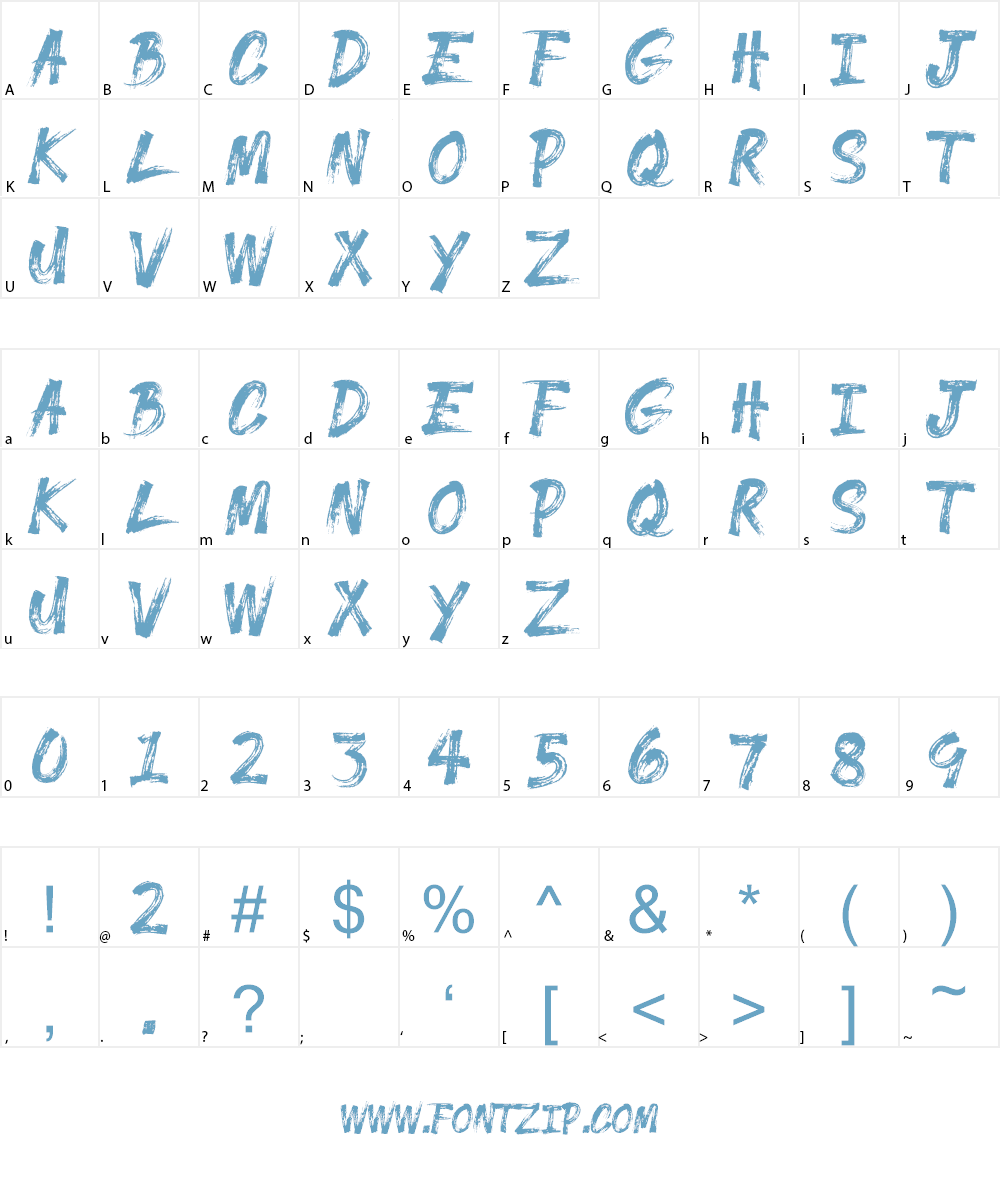
- Introducing -
GLADES (Brush Typeface).
- BOLD typeface with special Brush effects. All Capital.
GLADES (Brush Typeface).
- BOLD typeface with special Brush effects. All Capital.